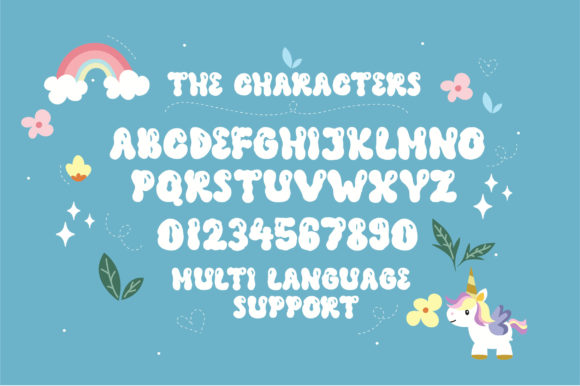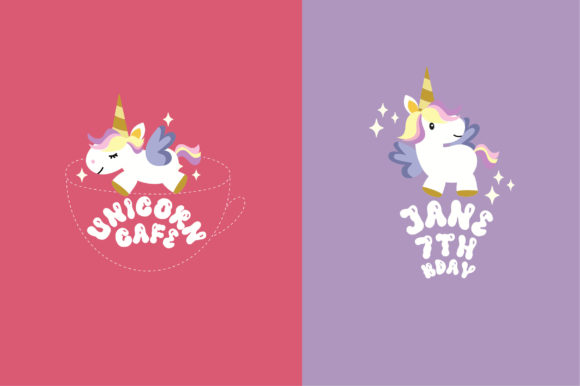
Introduction to Milky Unicorn Font
Have you ever found yourself staring at a blank page, eager to bring a creative project to life, but struggling to find the perfect font to match your vision? I know I have! As a designer, I’ve been there too, searching high and low for that special something that sets my work apart. That’s why I’m excited to share with you the Milky Unicorn Font, a game-changing design resource that’s sure to elevate your creative endeavors.
With its bold and eye-catching style, the Milky Unicorn Font is perfect for logos, titles, posters, and more. But what really sets it apart is the bonus of adorable unicorn illustrations, complete with transparent backgrounds, making them easy to use and customize to fit your project’s needs.
Key Features of Milky Unicorn Font
- High-quality design: The Milky Unicorn Font offers a unique blend of whimsy and elegance, making it perfect for creative projects that require a touch of magic.
- Unique characteristics: The Milky Unicorn Font features a distinctive unicorn-inspired design, complete with flowing lines and a touch of magic, making it perfect for fantasy and whimsical projects.
- Perfect for creative projects: Whether you’re designing a children’s book, a fantasy novel, or a whimsical advertisement, the Milky Unicorn Font is the perfect design resource to bring your creative vision to life.
Honest Review: Milky Unicorn Font
I recently stumbled upon the Milky Unicorn Font, and I must say, it’s a unique addition to any creative project. The high-quality design makes it stand out from the crowd.
- ✨ Unique and playful design
- ✨ High-quality typography
- ✨ Versatile and suitable for various creative projects
- ⚠️ May require additional design work to achieve desired results
- ⚠️ Transparent background can be tricky to work with
Overall, I’m impressed with the Milky Unicorn Font as a design resource. While it may not be perfect for every project, its unique design and high-quality typography make it a valuable addition to any designer’s toolkit.